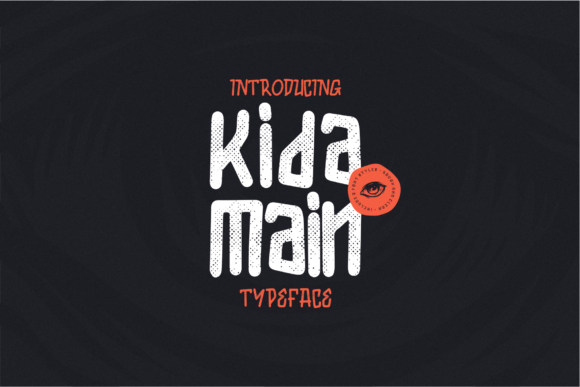
Prepare to be thrilled by Kida Main, a font that exudes playfulness and charisma! Its bold and energetic strokes are designed to captivate audiences, transforming your designs into captivating masterpieces.
Kida Main isn't just a font; it's an expression of individuality and creativity. Its strokes dance off the page, conveying a sense of joy and excitement. Whether you're creating eye-catching posters, inspiring presentations, or captivating social media posts, Kida Main will infuse your projects with an unforgettable charm.
Let your imagination soar as you explore the versatility of Kida Main. Its bold character lends itself to a wide range of applications, from playful branding to dynamic headlines. Each letterform carries a distinct personality, bringing life to your words and captivating your audience.
With Kida Main, your designs will stand out from the crowd, leaving a lasting impression on anyone who encounters them. Unleash your creativity and let this font guide you towards design greatness. Kida Main is your passport to a world of visual delight and unforgettable experiences.